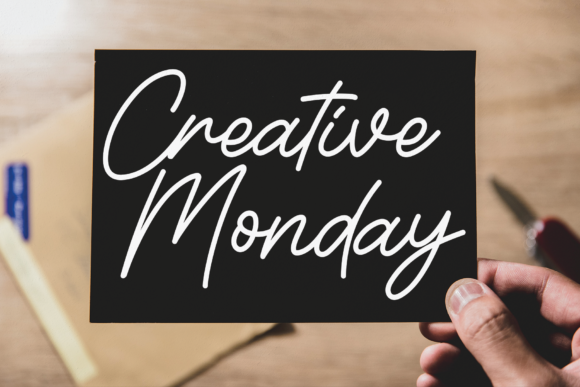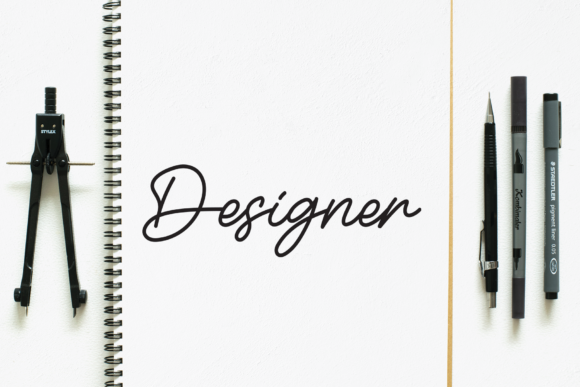
Signature Valentine Font
db-ku.com - Script & Handwritten -- Signature Valentine is a thin and simple handwritten font. No matter the topic, this font will be an incredibly asset to your fonts’ library, as it has the potential to elevate any creation.